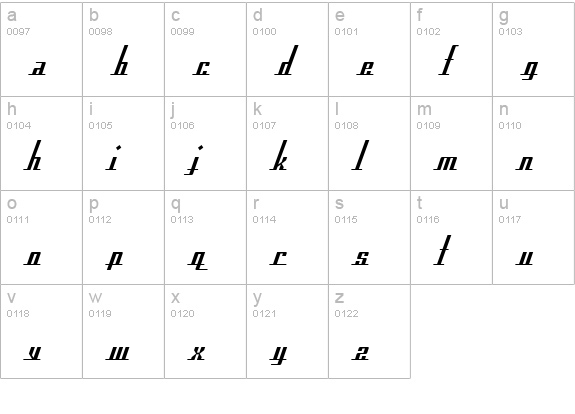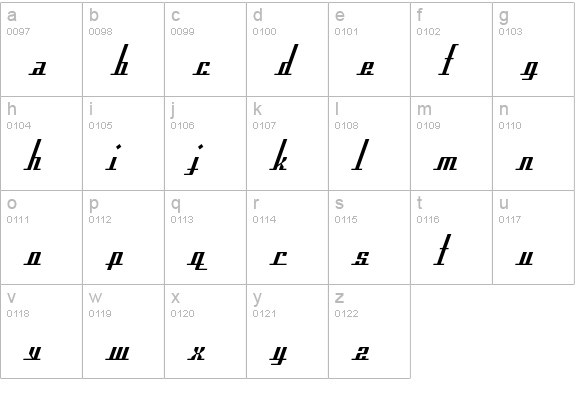
SF Americana Dreams Font Details
SF Americana Dreams is a captivating font that seamlessly combines the essence of American heritage with a touch of modernity. With its bold, yet elegant letterforms, this typeface exudes a sense of nostalgia and optimism, making it the perfect choice for projects that require a dash of Americana charm. Inspired by the iconic spirit of the United States, SF Americana Dreams encapsulates the dreams and aspirations that have shaped the country's history. Each letter is meticulously crafted, with intricate details that pay homage to the rich cultural tapestry of America. From the flowing curves to the sharp edges, this font embodies the diverse landscapes, vibrant cities, and enduring traditions that define the American experience. With SF Americana Dreams, your designs will effortlessly capture the essence of freedom, adventure, and possibility. Whether you're working on a vintage-inspired poster, an eye-catching logo, or a patriotic banner, this font will elevate your project and give it a distinctive flair. The best part? SF Americana Dreams is freely available to download at FontsMarket.com. This means that you can bring a touch of Americana into your designs without breaking the bank. Now, you can have the freedom to express your creativity and tell your own American story with this remarkable typeface. So, why wait? Download SF Americana Dreams today and let it transport your designs to a world where dreams come true and the American spirit shines bright.